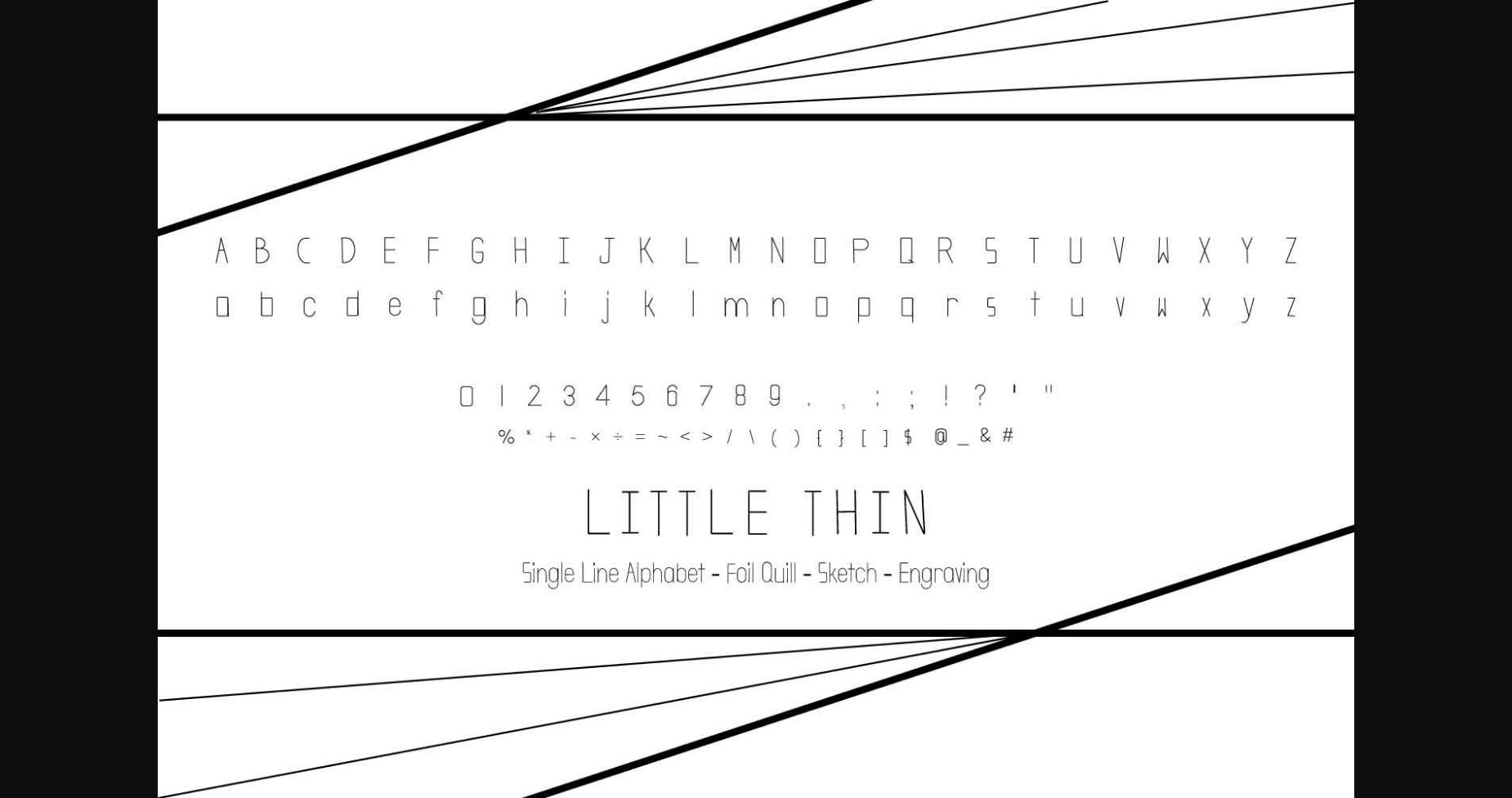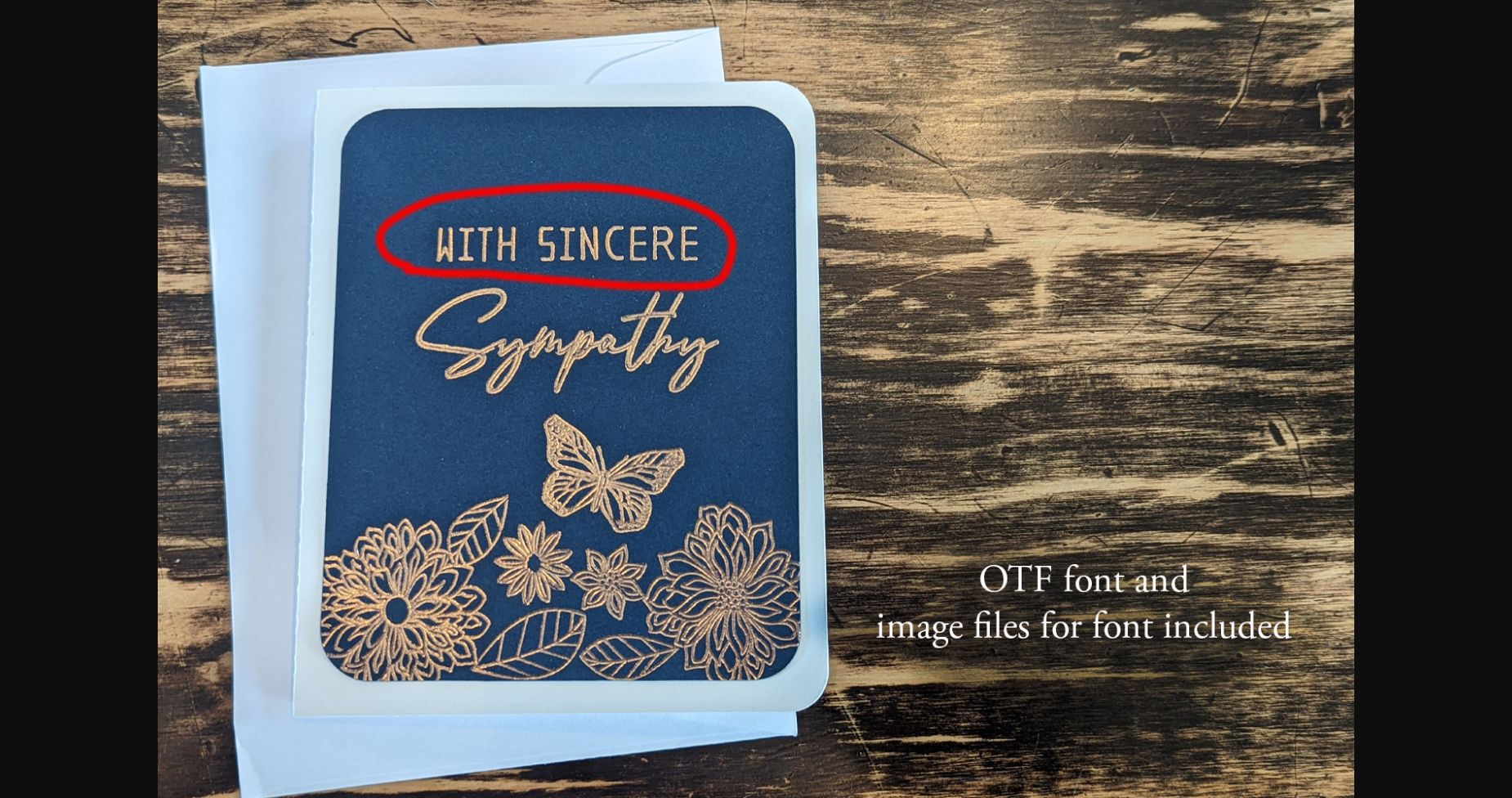
Little Thin Font
About Little Thin Font
Little thin is a unique and interesting display font. Add it to your most creative ideas and notice how it makes them come alive!